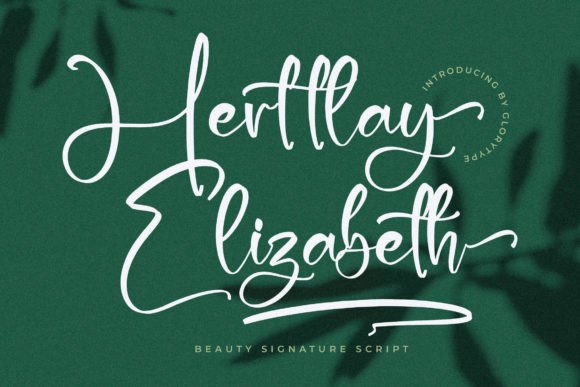
Prepare to be captivated by Herttlay Elizabeth, the enchanting script font that will transform your creative visions into breathtaking works of art. Immerse yourself in the world of elegance and grace as this font weaves its magic, leaving an unforgettable impression on every design it adorns.
Designed with meticulous attention to detail, Herttlay Elizabeth embodies the essence of timeless beauty. Its graceful curves and delicate flourishes evoke a sense of sophistication and refinement, making it the perfect choice for those seeking to add a touch of enchantment to their designs.
Unleash your creativity and let Herttlay Elizabeth's versatile nature guide you through a multitude of projects. Whether you're crafting heartfelt wedding invitations, designing eye-catching logos, or personalizing handmade gifts, this font will effortlessly elevate your creations to new heights.
Picture your Instagram feed adorned with captivating quotes and messages, brought to life by Herttlay Elizabeth's enchanting charm. Its elegant lines will dance across your screen, inviting your audience to delve into a world of beauty and inspiration.
Envision your DIY projects transformed into masterpieces as Herttlay Elizabeth's delicate touch adds a personal touch to every creation. From custom-made cards to personalized home décor, this font will effortlessly elevate your handmade gifts, leaving a lasting impression on all who receive them.
Herttlay Elizabeth isn't just a font; it's an experience that will ignite your imagination and captivate your audience. Its timeless appeal and versatility make it the perfect choice for those seeking to create designs that leave an indelible mark on the world.
So, embrace the magic of Herttlay Elizabeth and embark on a creative journey where elegance, sophistication, and beauty intertwine. Let this font be your muse and witness the transformation of your designs into true works of art.